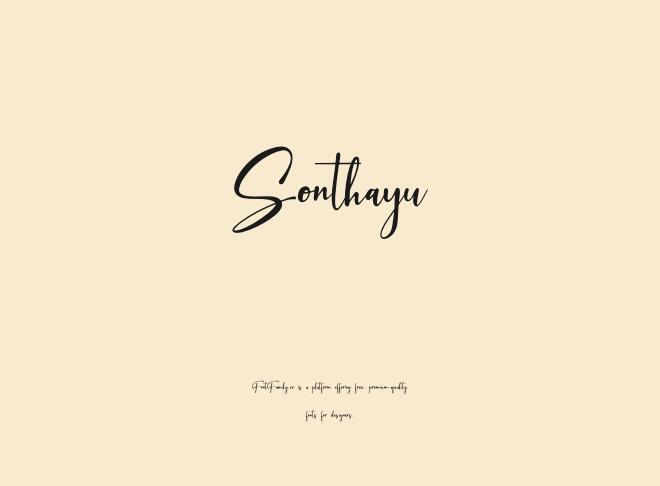
Sonthayu Font
Sonthayu Font is a modern handwritten typeface that exudes a casual and playful vibe. Designed by the Creative Typography Studio, this font exhibits a unique blend of modernity and whimsy, perfect for digital projects, blogs, social media graphics, and more. Its stylish, free-flowing characters can add a touch of personality and charm to any design. Compared to other fonts, Sonthayu stands out with its distinctive handwritten style that is both legible and aesthetically pleasing. Whether you're designing a chic wedding invitation or a trendy blog post, Sonthayu Font is a great choice. Its versatility and modern appeal make it a must-have in every designer's toolkit.